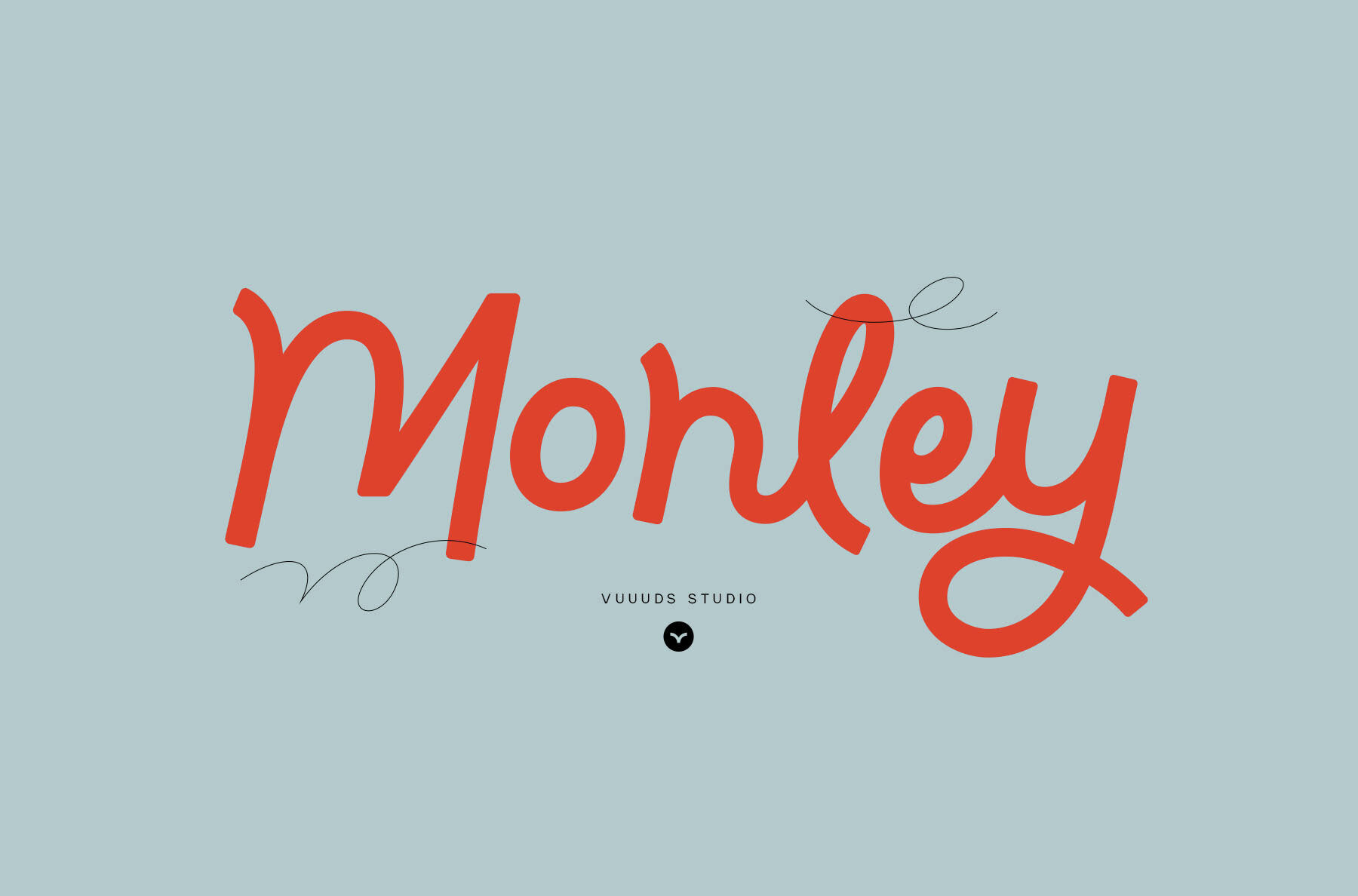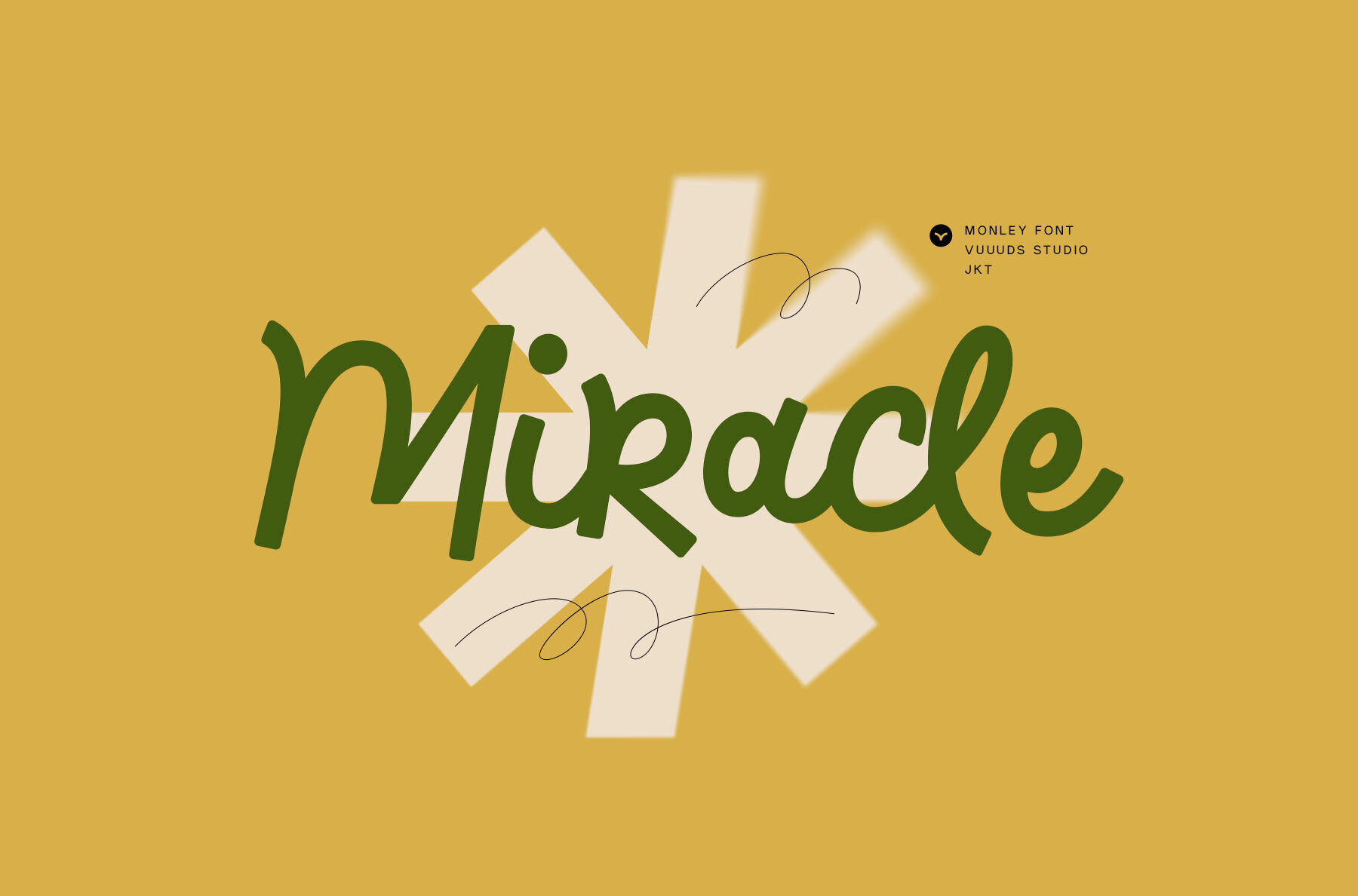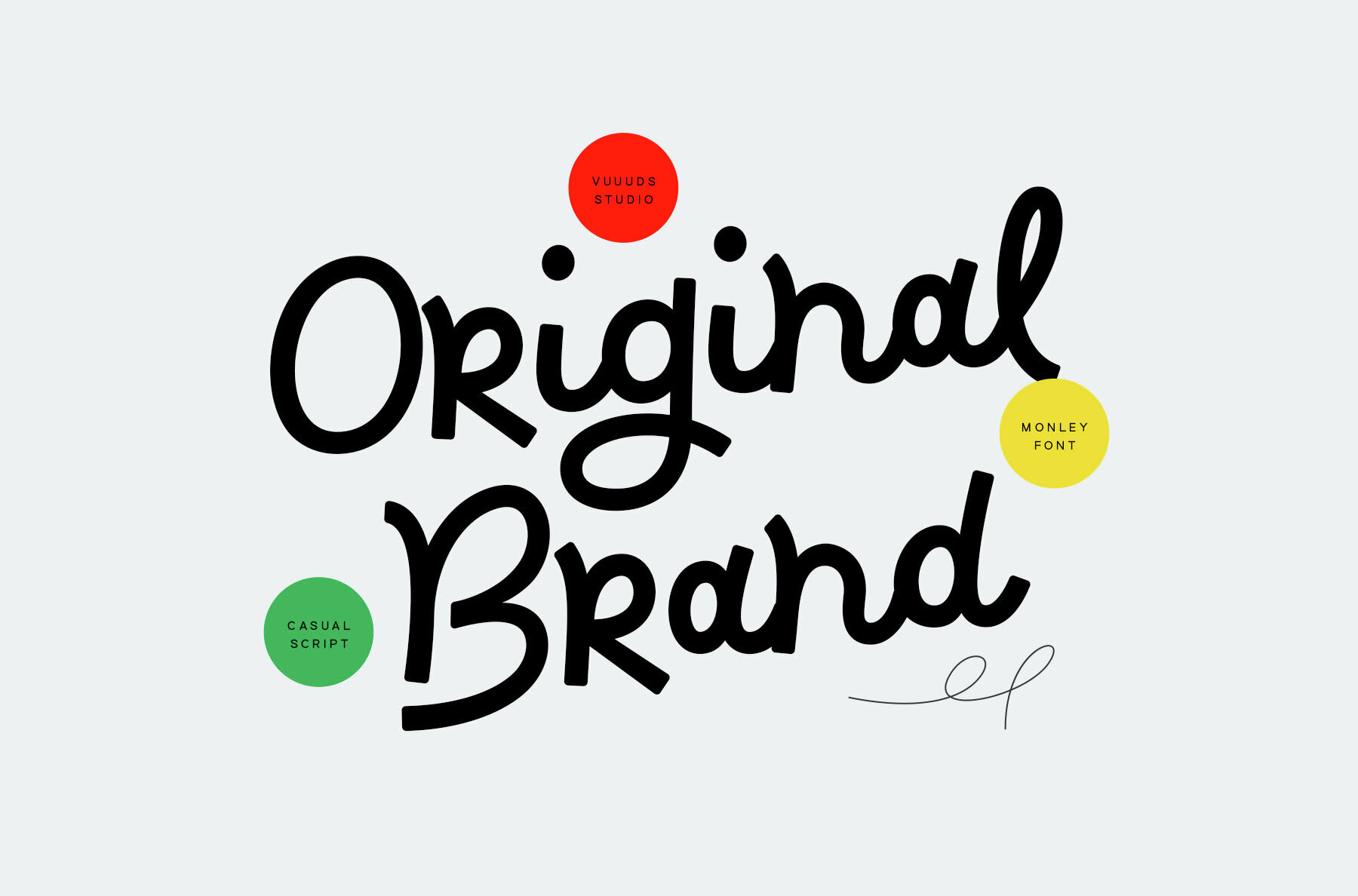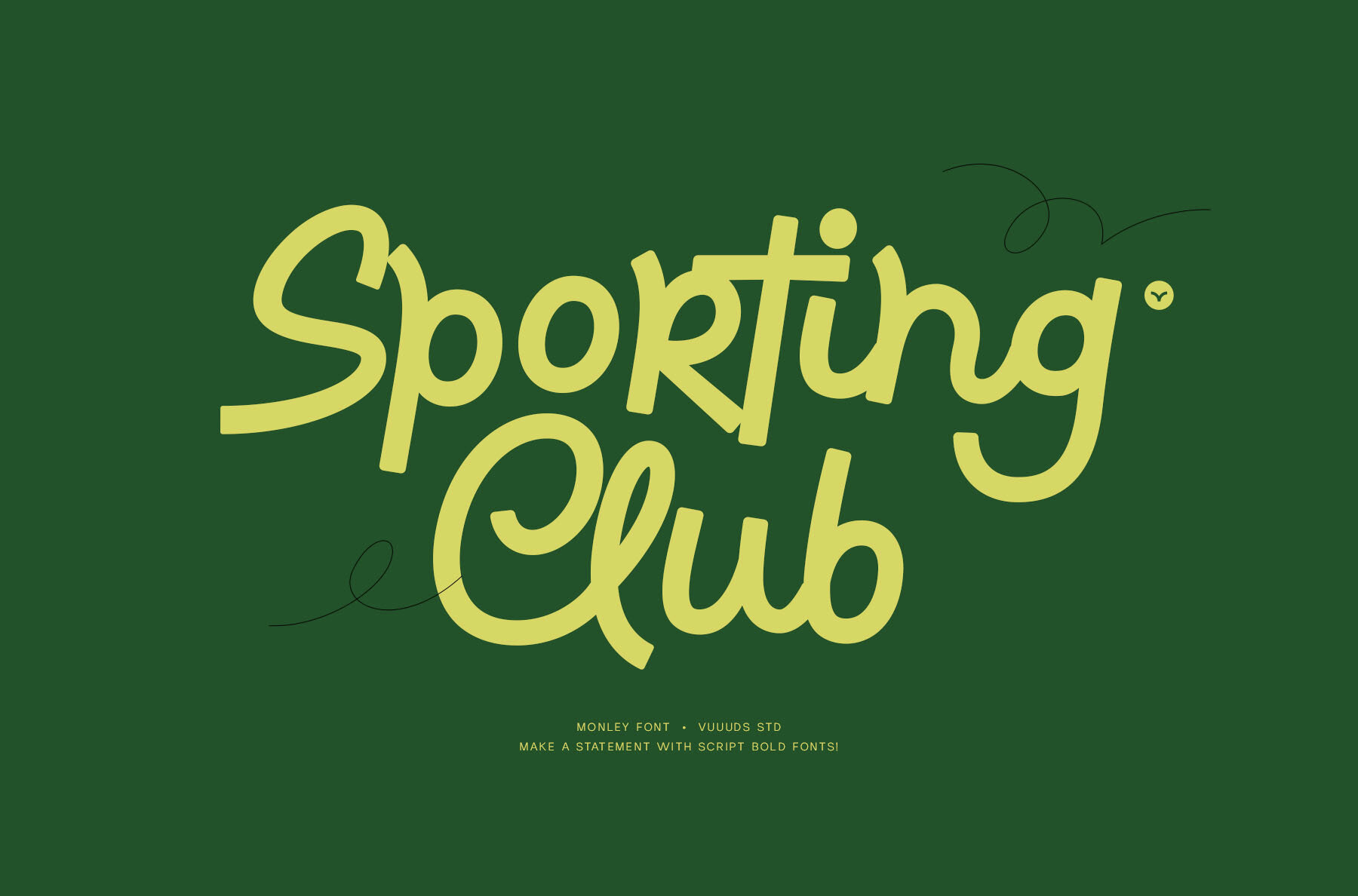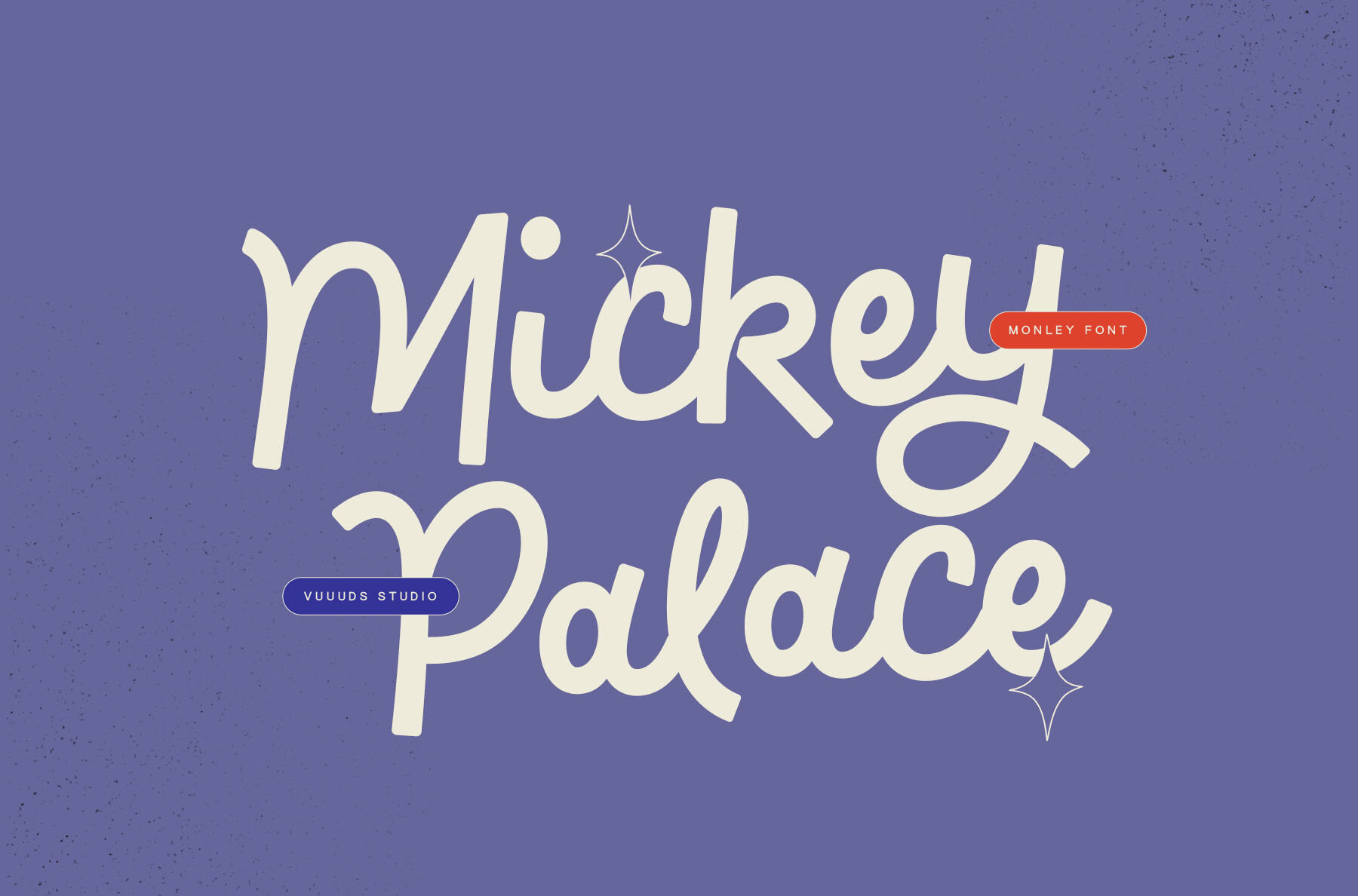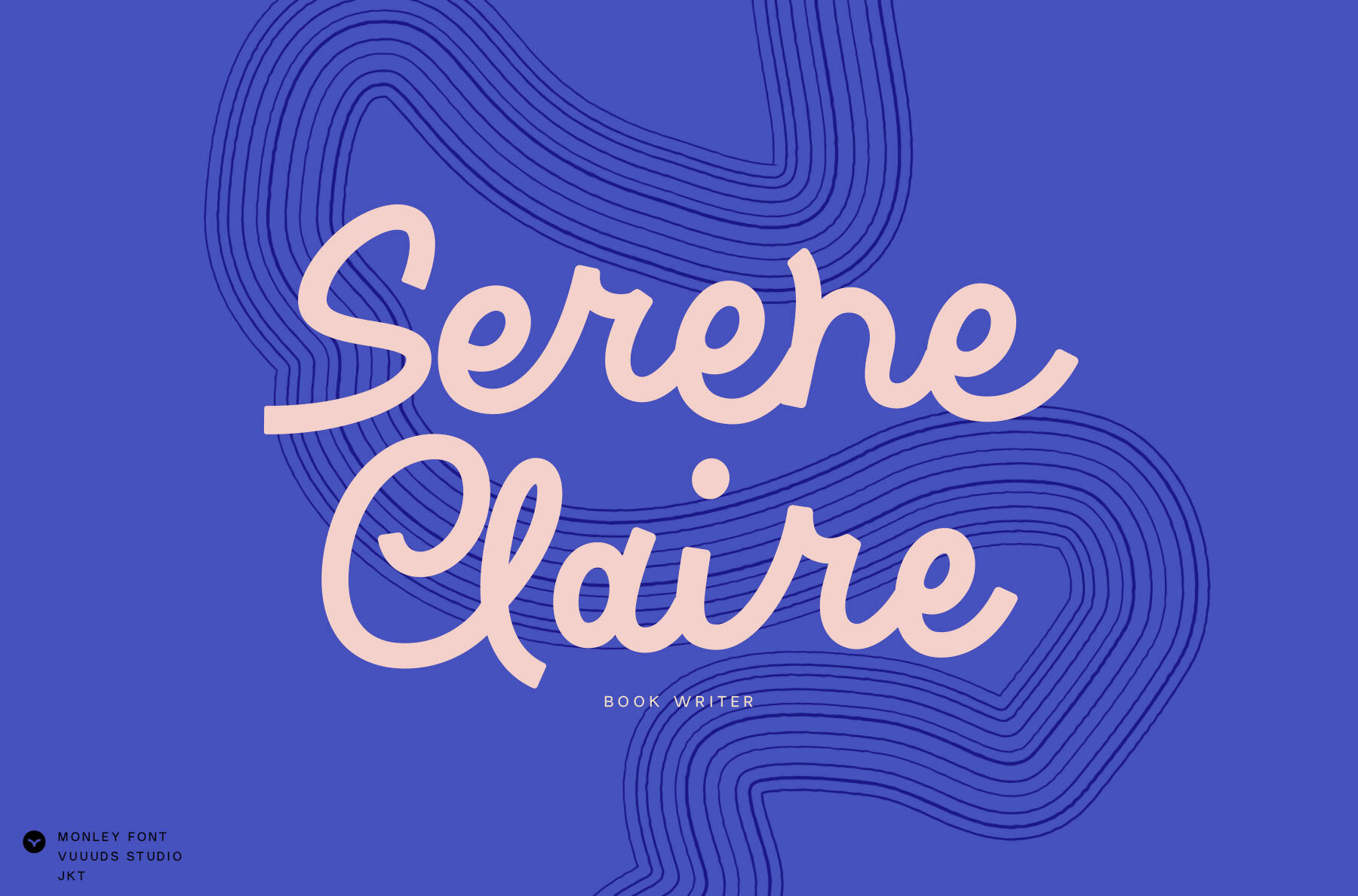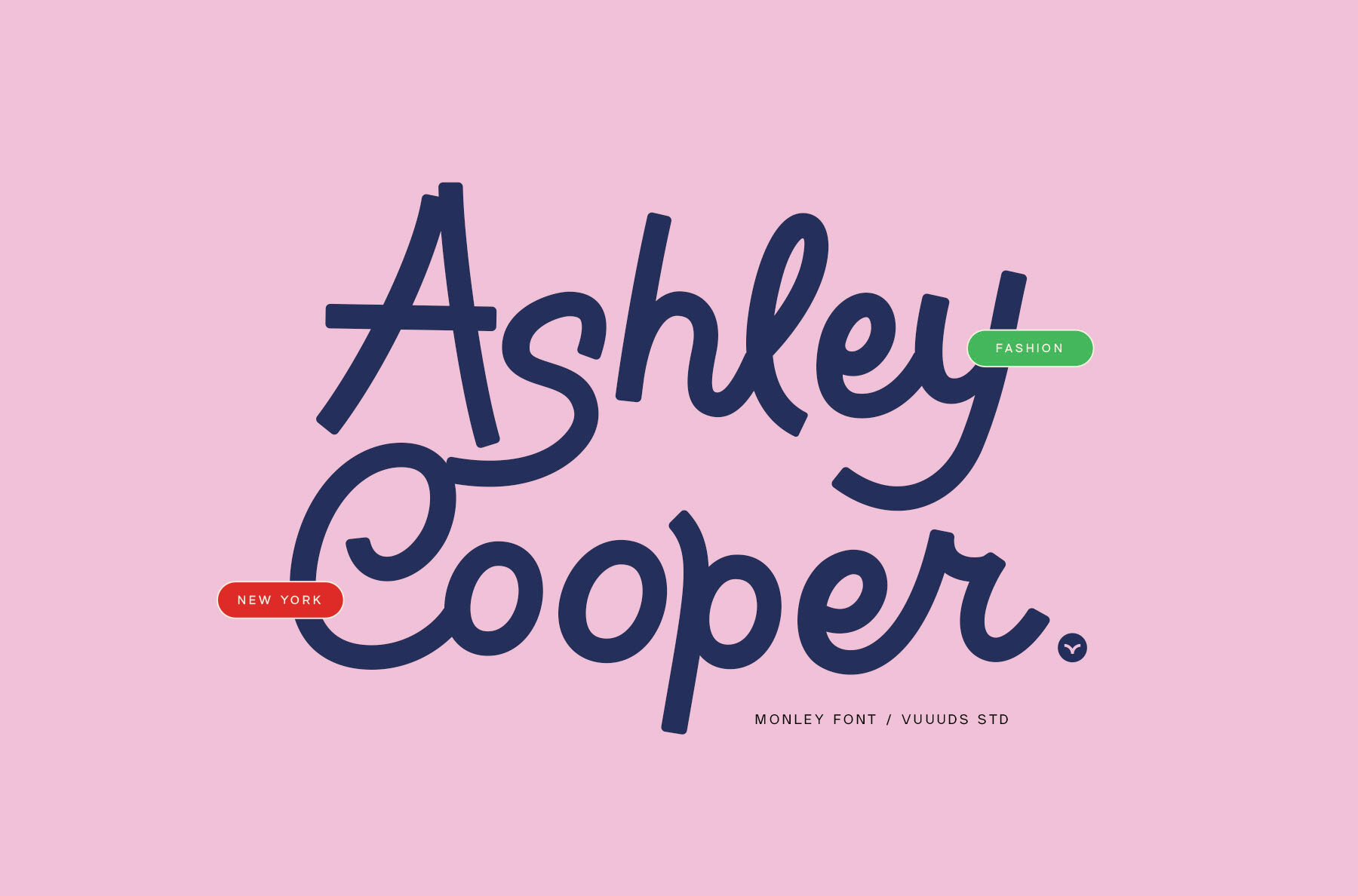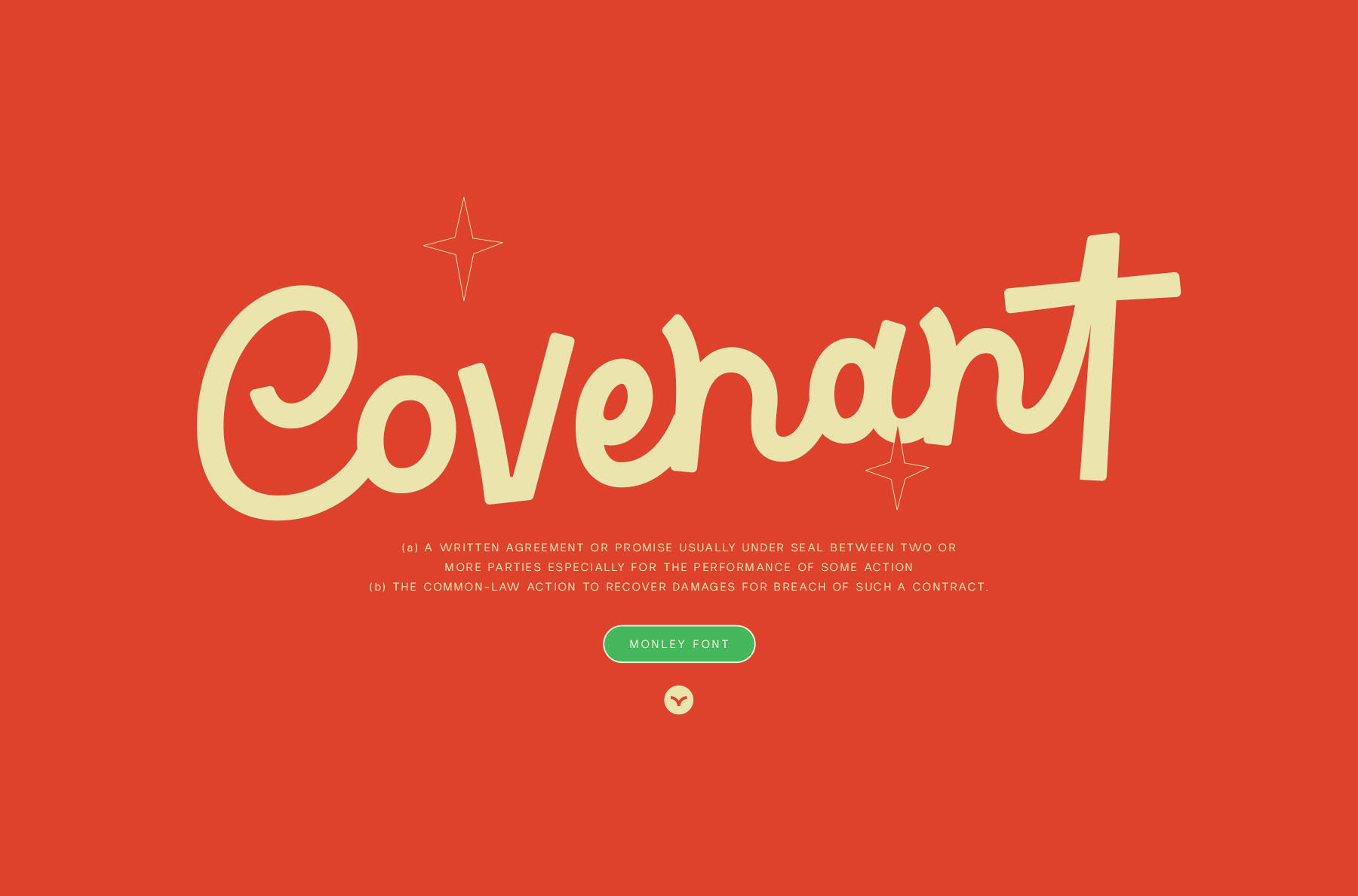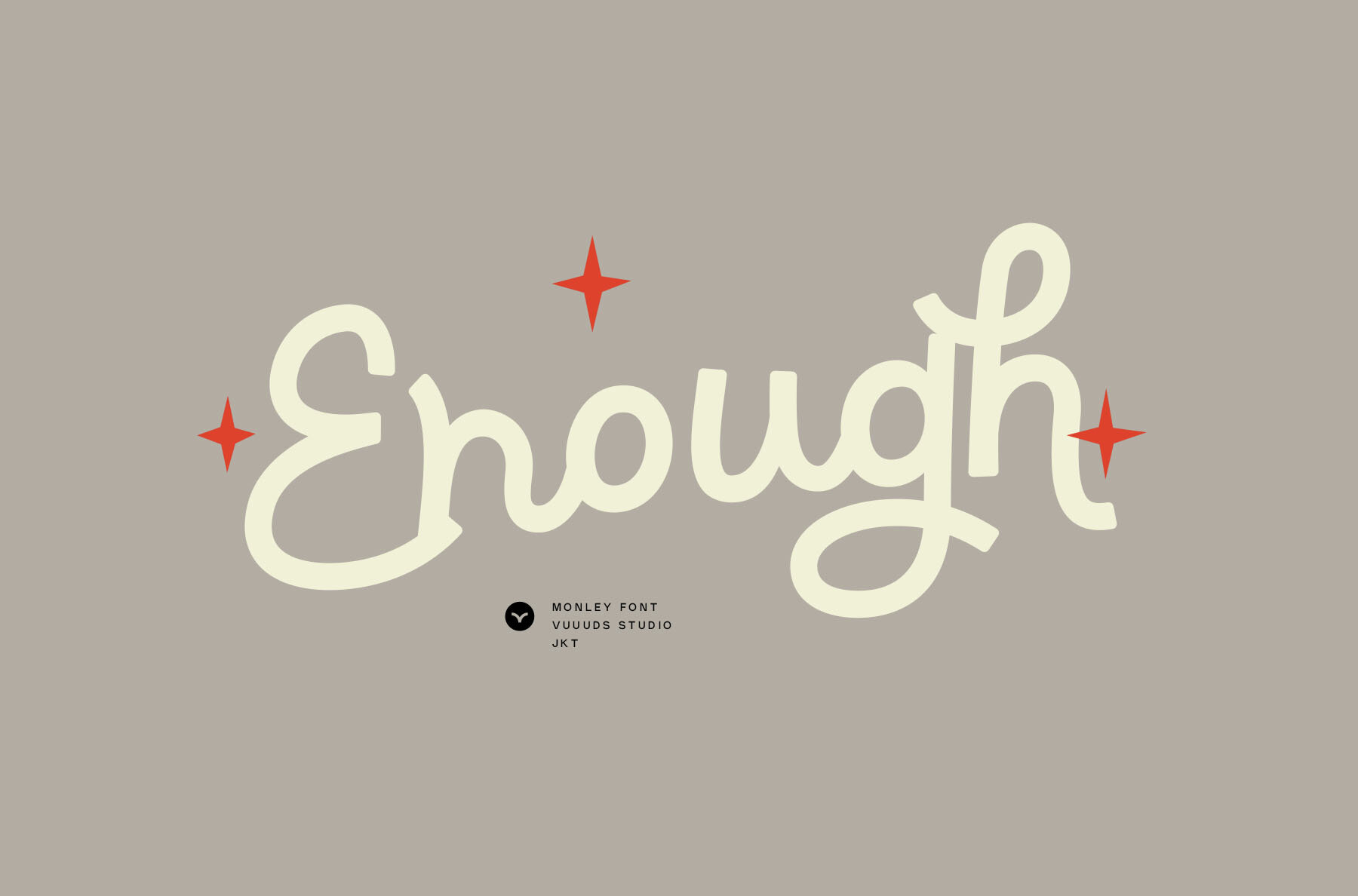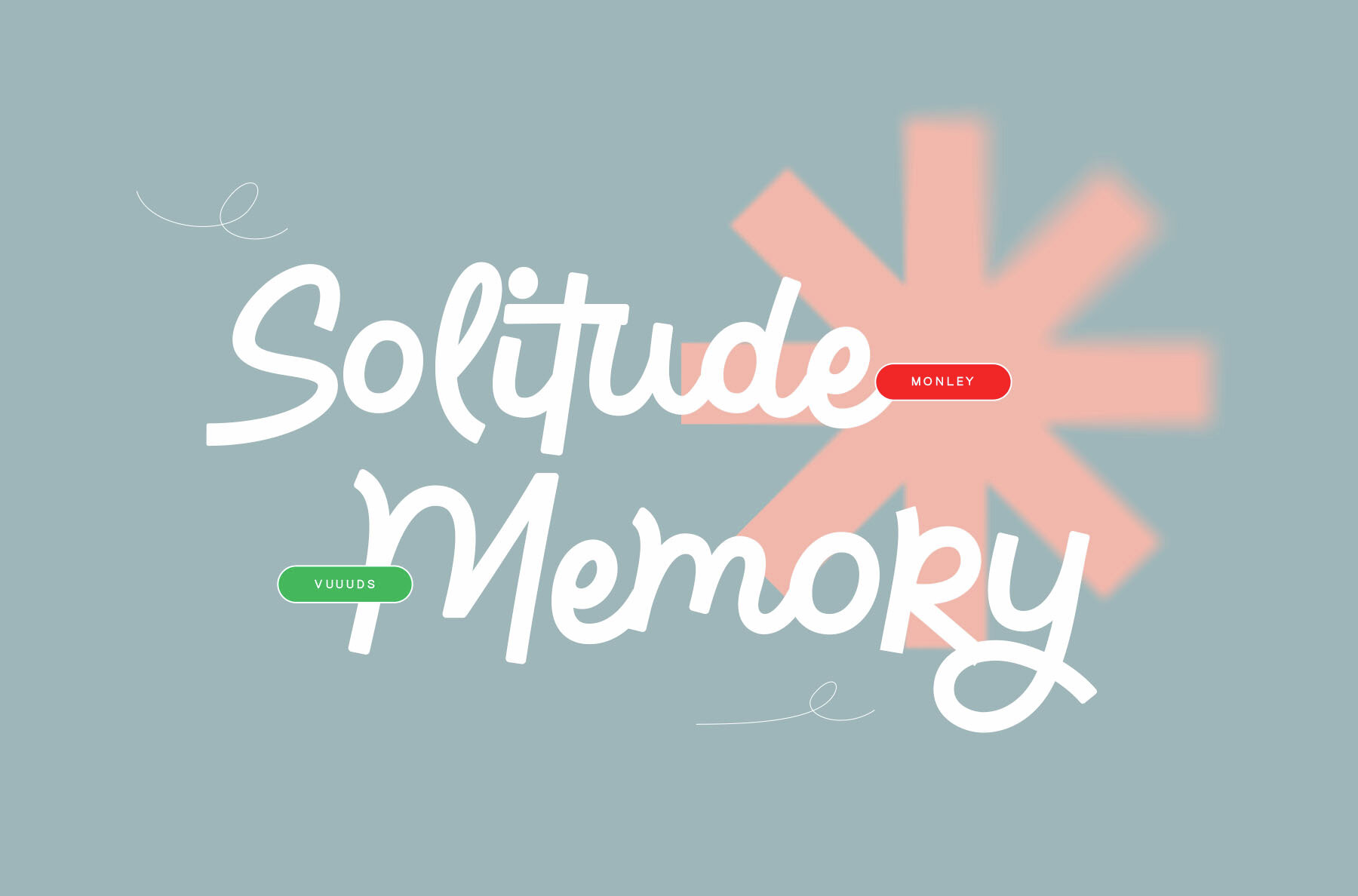
Monley Font
Monley Regular
This font features a playful, handwritten style with bold, expressive characters, making it perfect for creative and artsy design projects. Its whimsical and unique nature makes it ideal for informal branding, children's books, greeting cards, and any project that requires a personalized and fun touch.